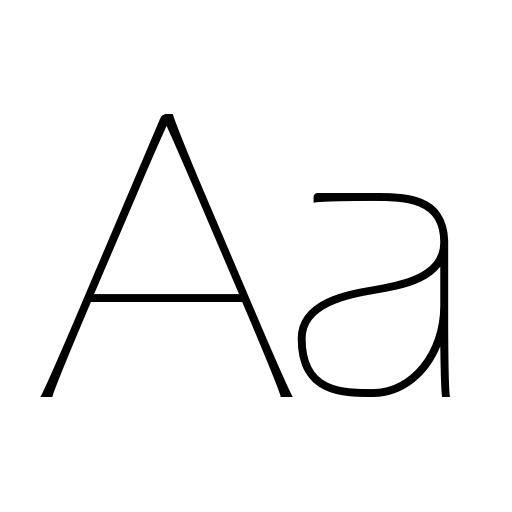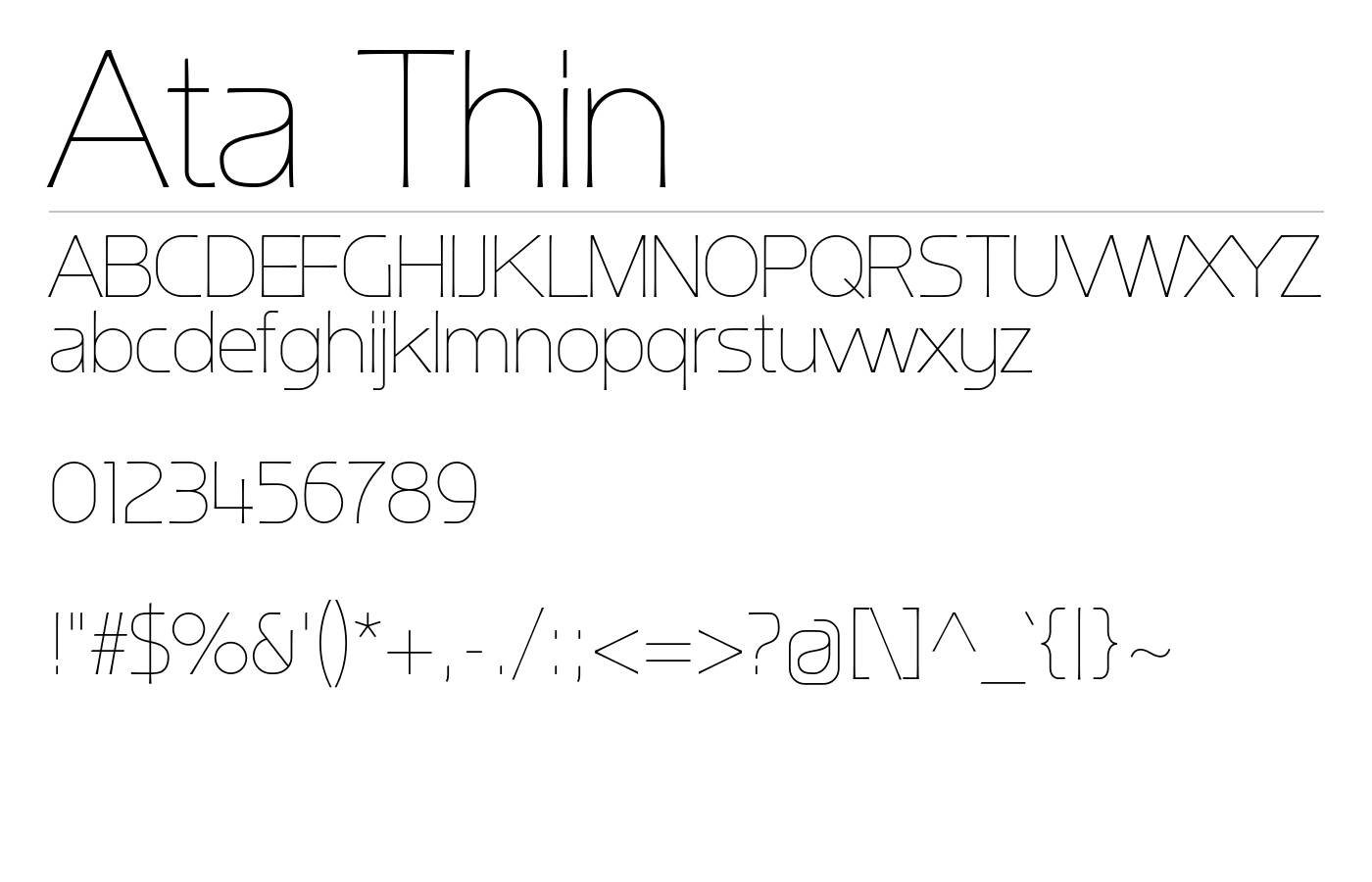
Ata Thin is a sleek, modern sans serif font characterized by its extremely thin strokes and geometric letterforms, giving it a delicate and minimalist appearance. Its tall x-height and clean lines make it ideal for contemporary design projects that require a refined, elegant, and sophisticated touch, such as fashion branding, editorial headlines, and stylish web interfaces. This font works best where a light, airy feel is desired to convey modernity and subtlety without sacrificing readability.
Ata Font
About Ata Font
| Font family | Ata Font |
| Designer | BULENT YUKSEL |